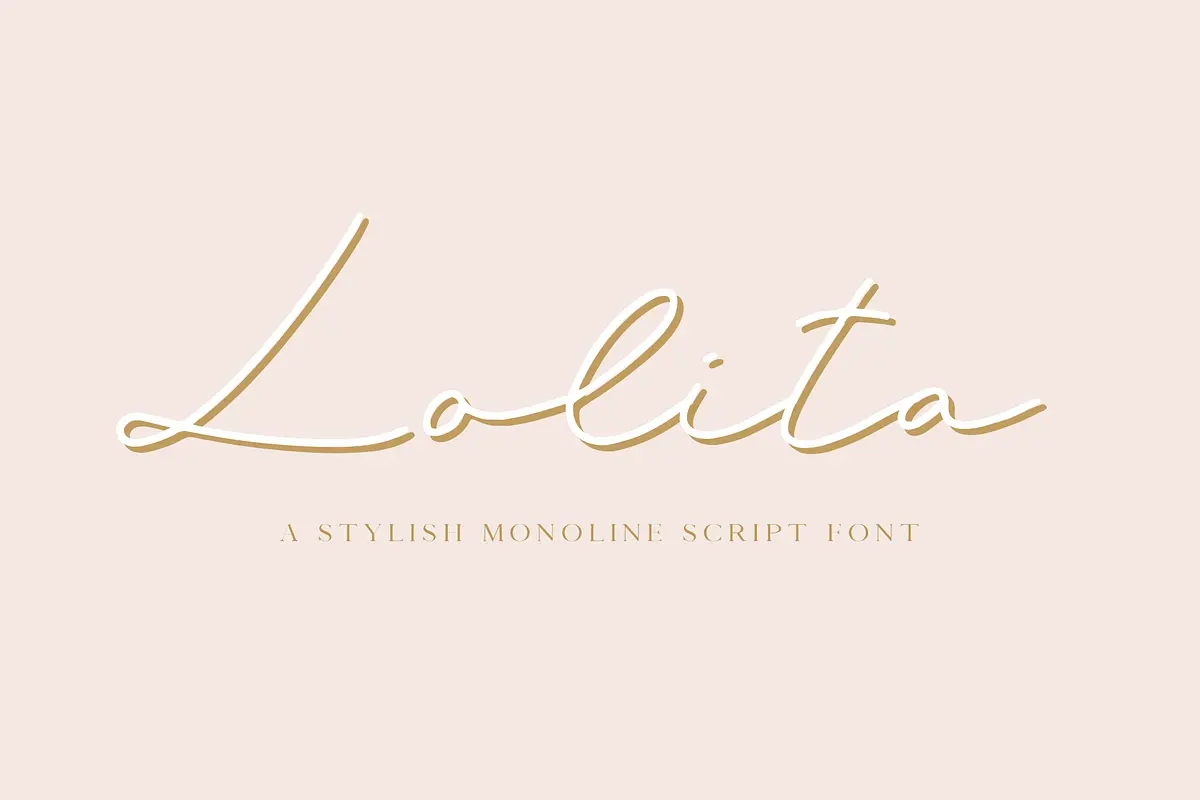
Lolita Script Font Free Download is a whimsical, elegant script typeface with a playful and romantic touch. With its smooth curves, flowing lines, and graceful flourishes, this font is perfect for wedding invitations, branding, greeting cards, and any project that calls for a touch of beauty and femininity.
Lolita’s refined, handwritten feel makes it ideal for designs that need to convey elegance while maintaining a friendly and inviting atmosphere. Whether you’re creating for a fashion brand, a special event, or personal projects, Lolita Script brings a sophisticated yet approachable vibe to your typography.
Add a dash of elegance and charm to your designs with the flowing beauty of Lolita Script!